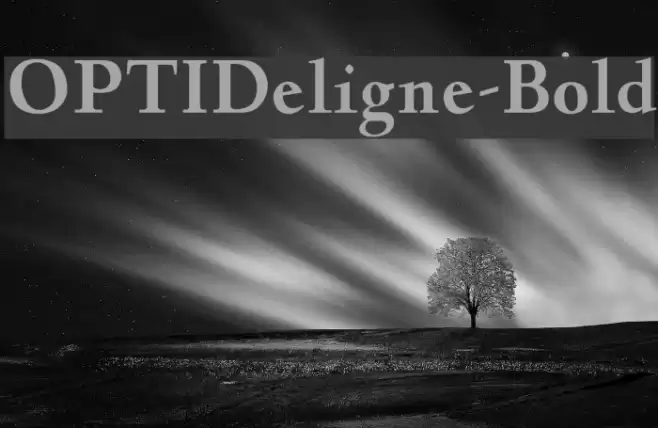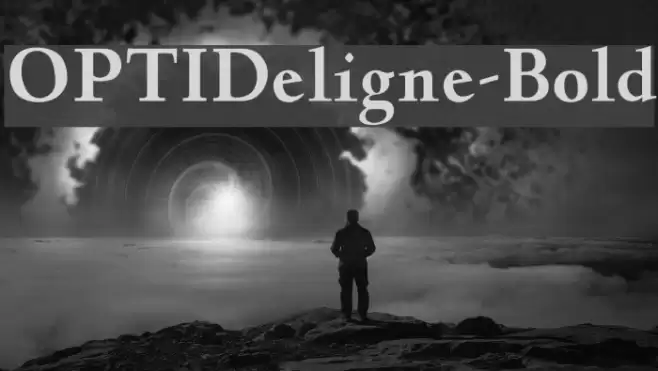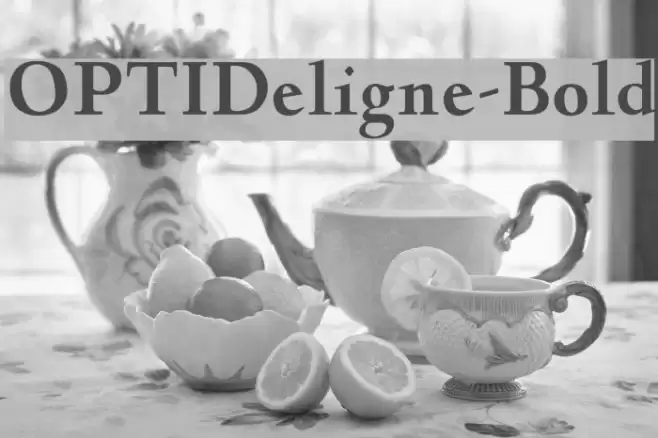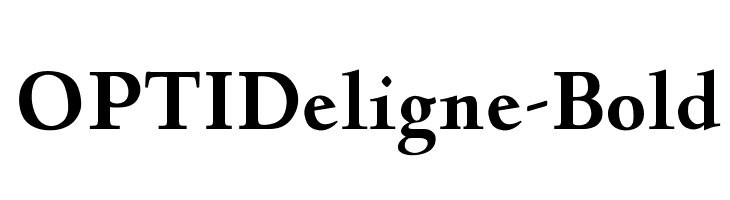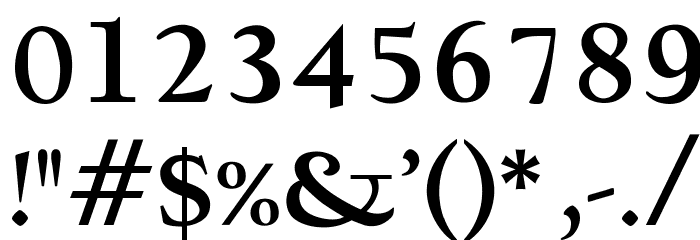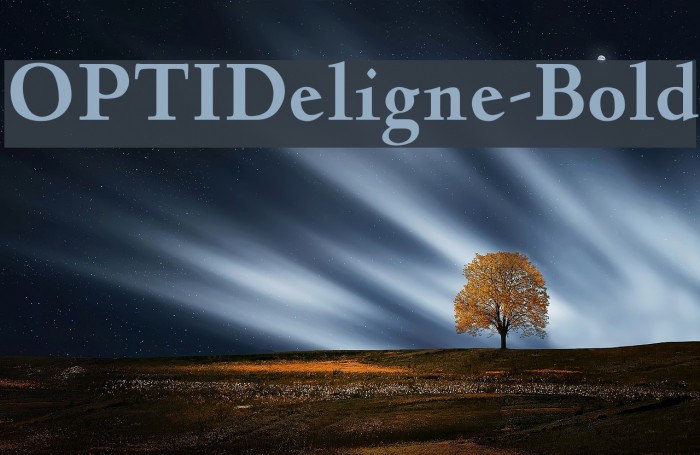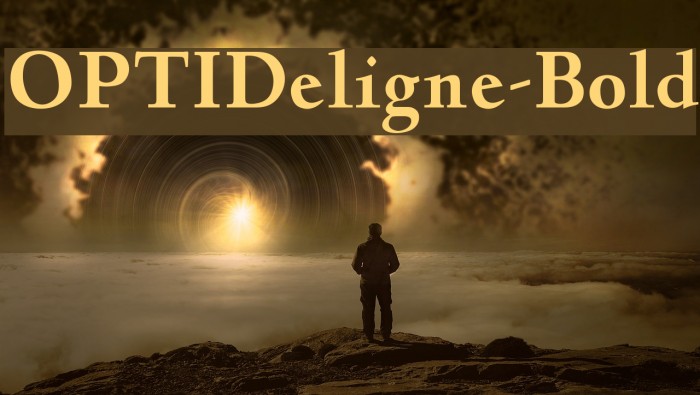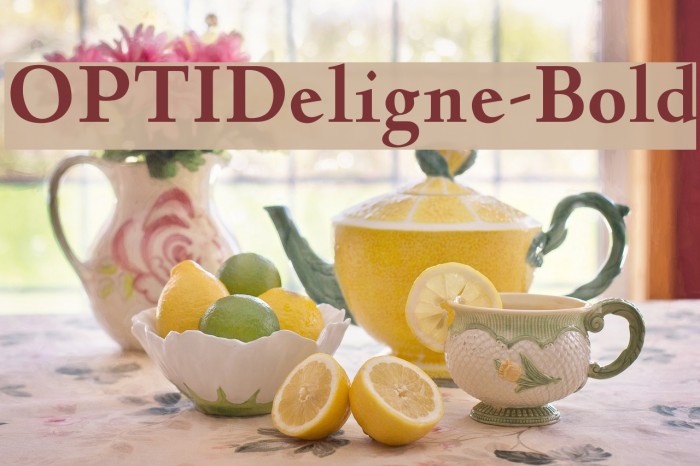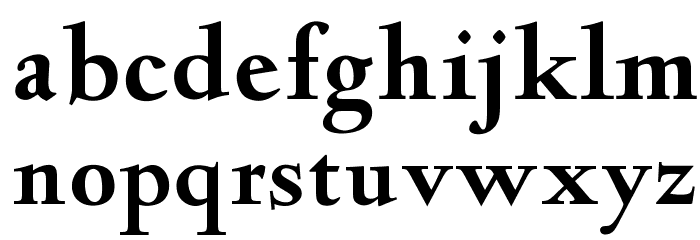
OPTIDeligne-Bold Font
OPTIDeligne-Bold Description
This font exhibits a classic serif style with a bold weight, characterized by its strong and pronounced serifs. The uppercase letters are elegantly proportioned, with a slight contrast in stroke thickness that adds to its readability and aesthetic appeal. The lowercase letters maintain a consistent style, with rounded forms and a balanced structure. The numerals are clear and distinct, making them suitable for both text and display purposes. Special characters are well-integrated, offering a cohesive look across all glyphs. This font's boldness and traditional design make it versatile for various applications.
A bold, classic serif font with elegant proportions and strong serifs from Uncategorized fonts.
- Proposed Projects: Ideal for book covers, editorial design, branding projects, and formal invitations.
- Overall Style: Classic